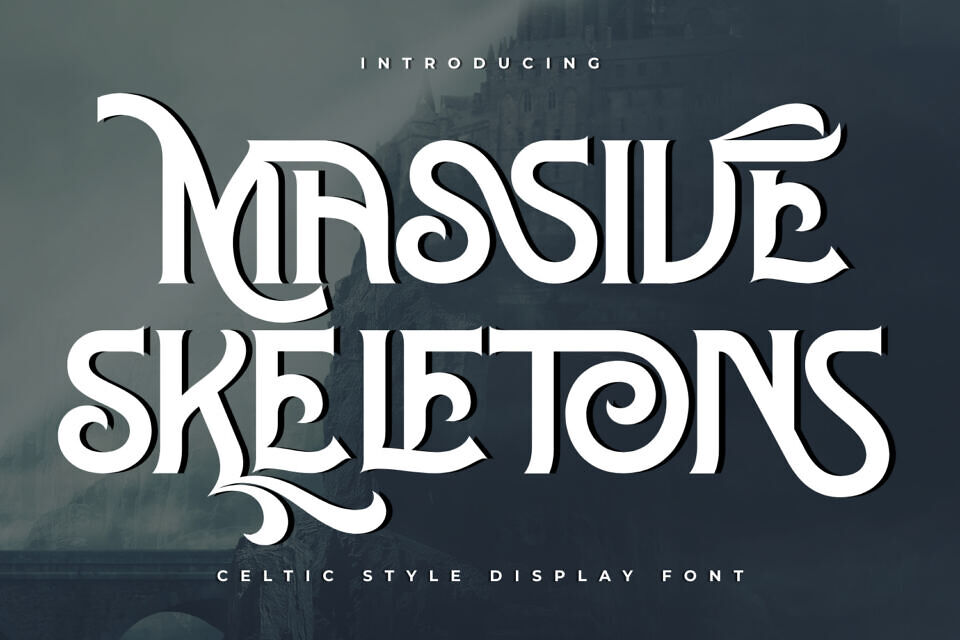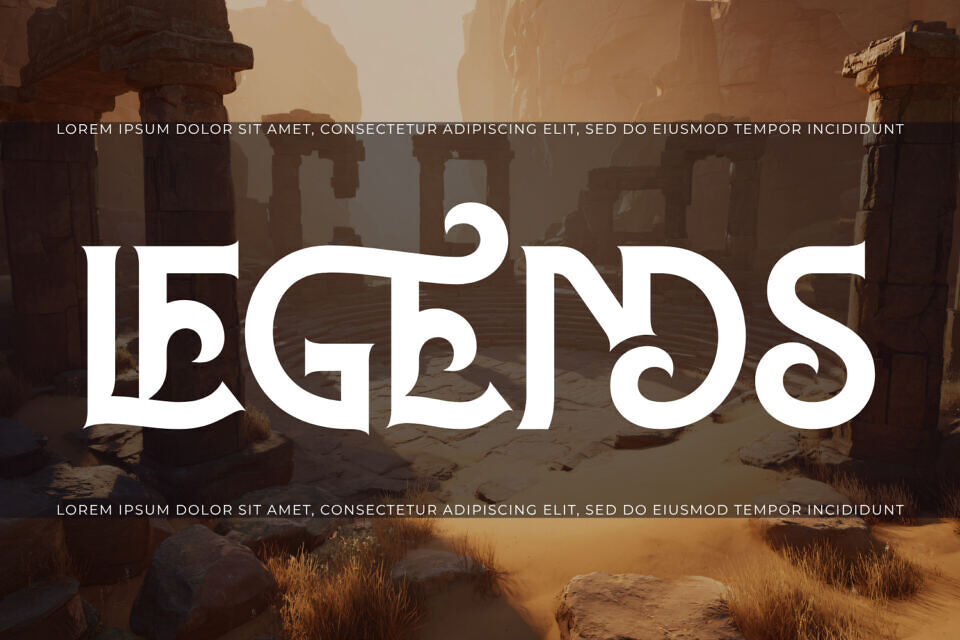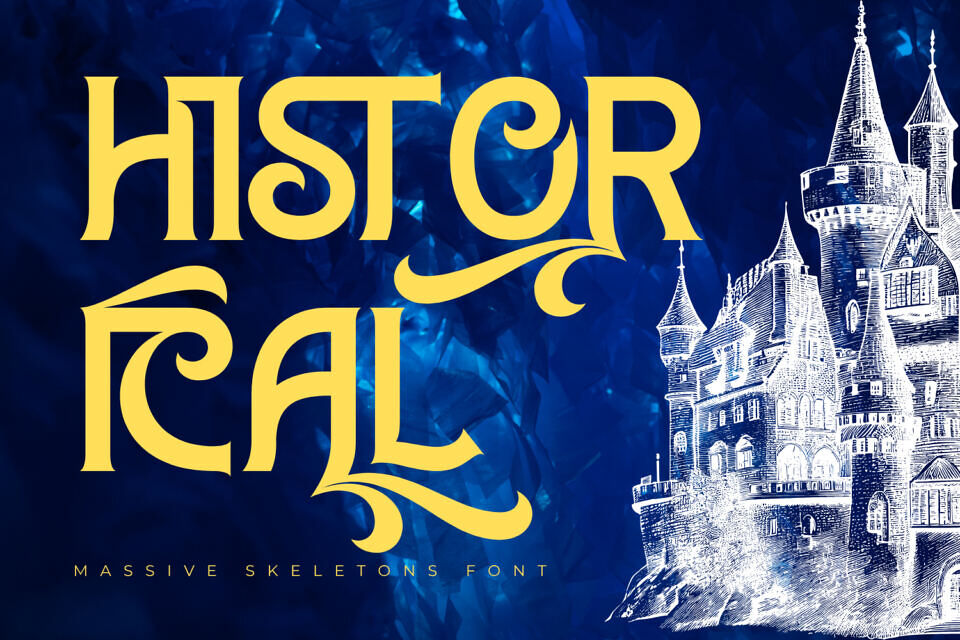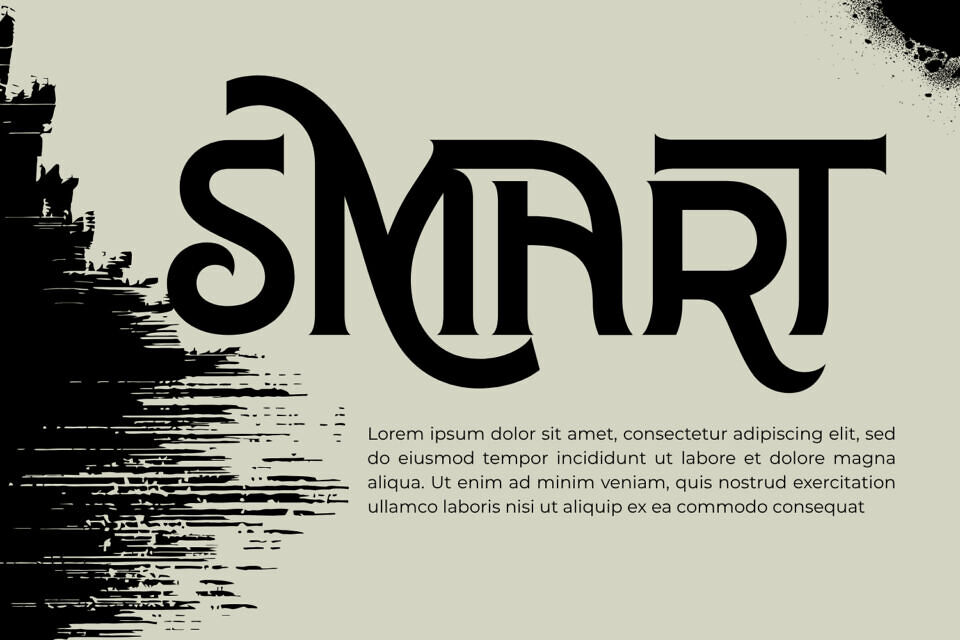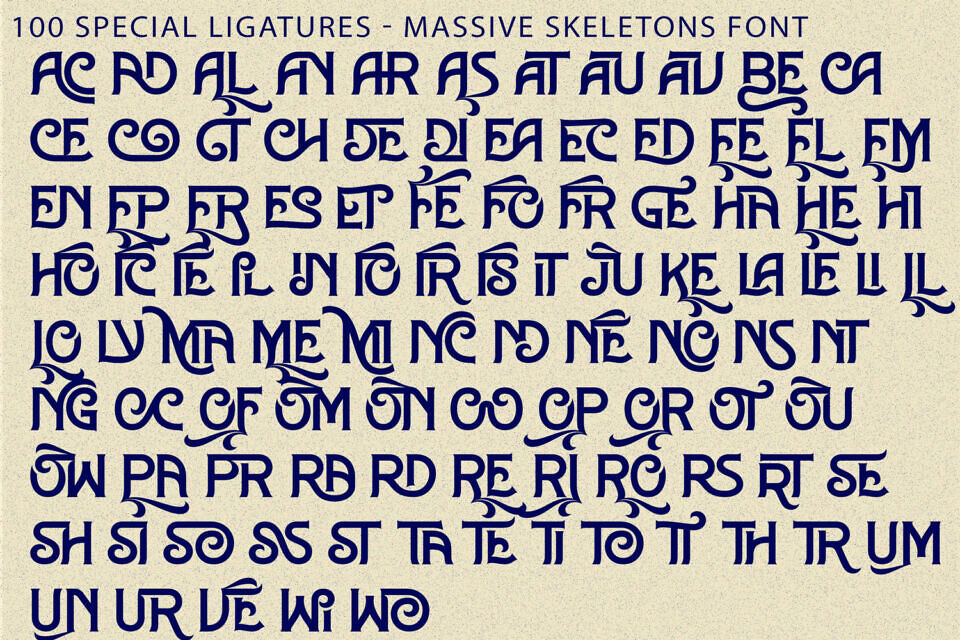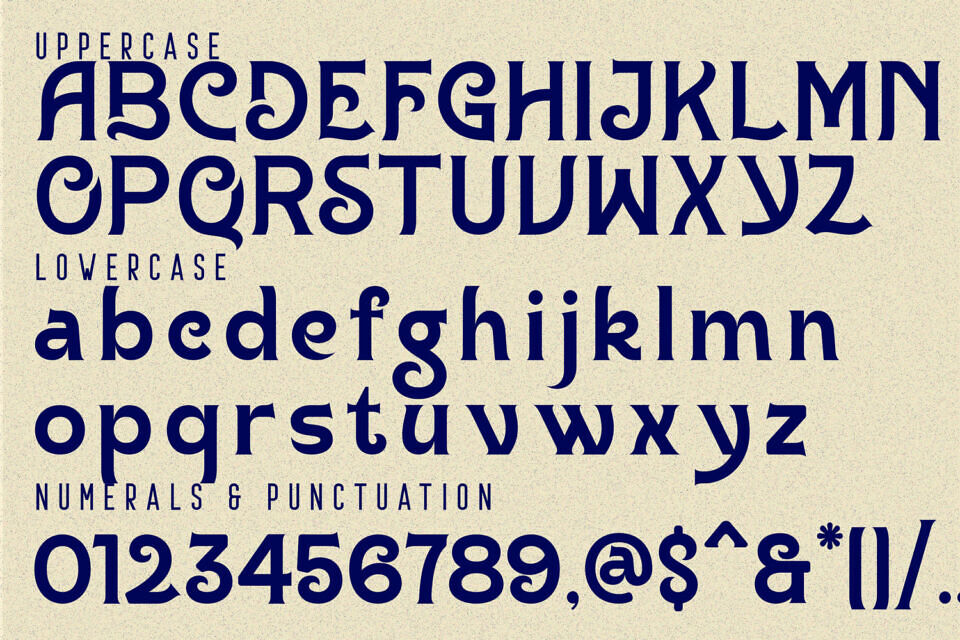
Massive Skeletons Font
MASSIVE SKELETONS is a bold vintage Blackletter display font that blends medieval elegance with modern craftsmanship. Inspired by classic Gothic lettering and Old English typography, this typeface features strong serif forms, dramatic curves, and beautifully ornamented swashes that create a rich and unforgettable visual identity. Every character is carefully crafted with decorative terminals, flowing flourishes, and expressive details, giving MASSIVE SKELETONS a timeless personality that feels both historic and luxurious.
Perfect for fantasy branding, medieval-themed artwork, book covers, game titles, tattoo designs, craft labels, whiskey packaging, gothic logos, vintage posters, music artwork, and premium branding, MASSIVE SKELETONS delivers a striking blend of heritage and sophistication.